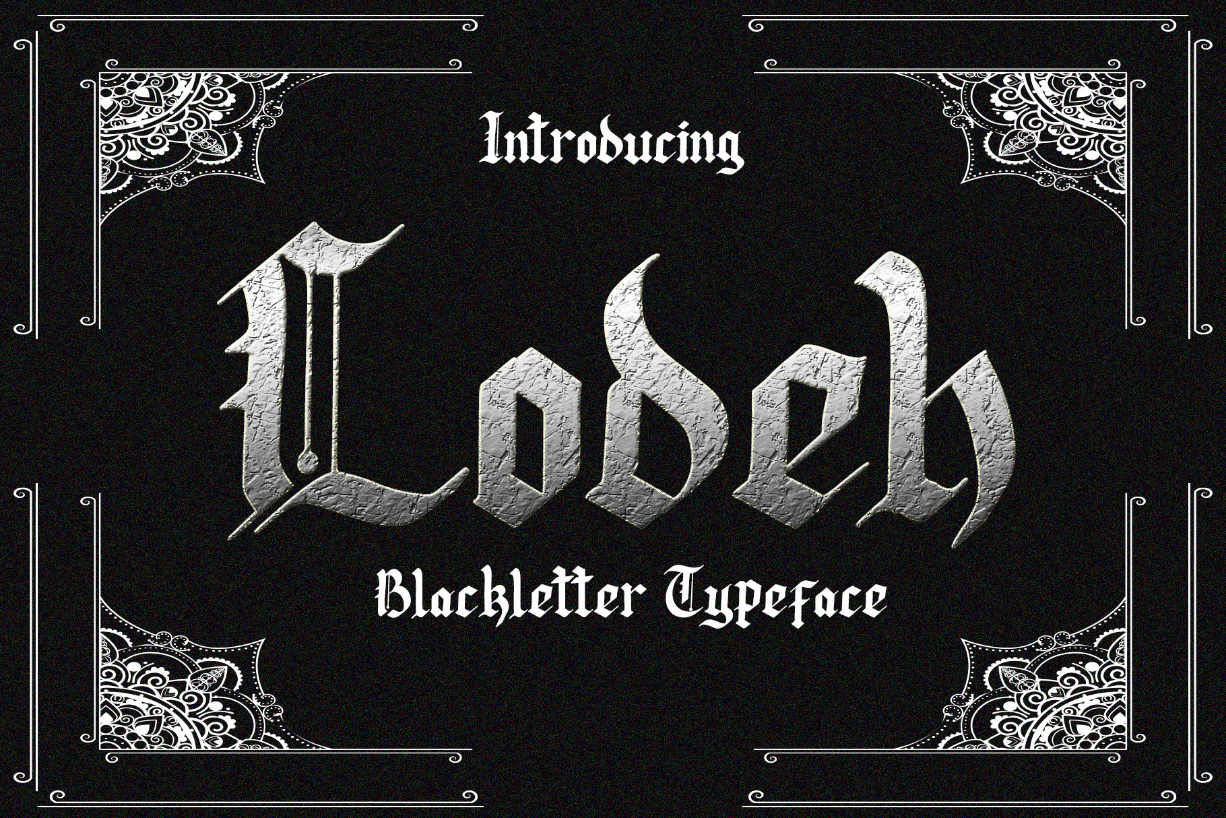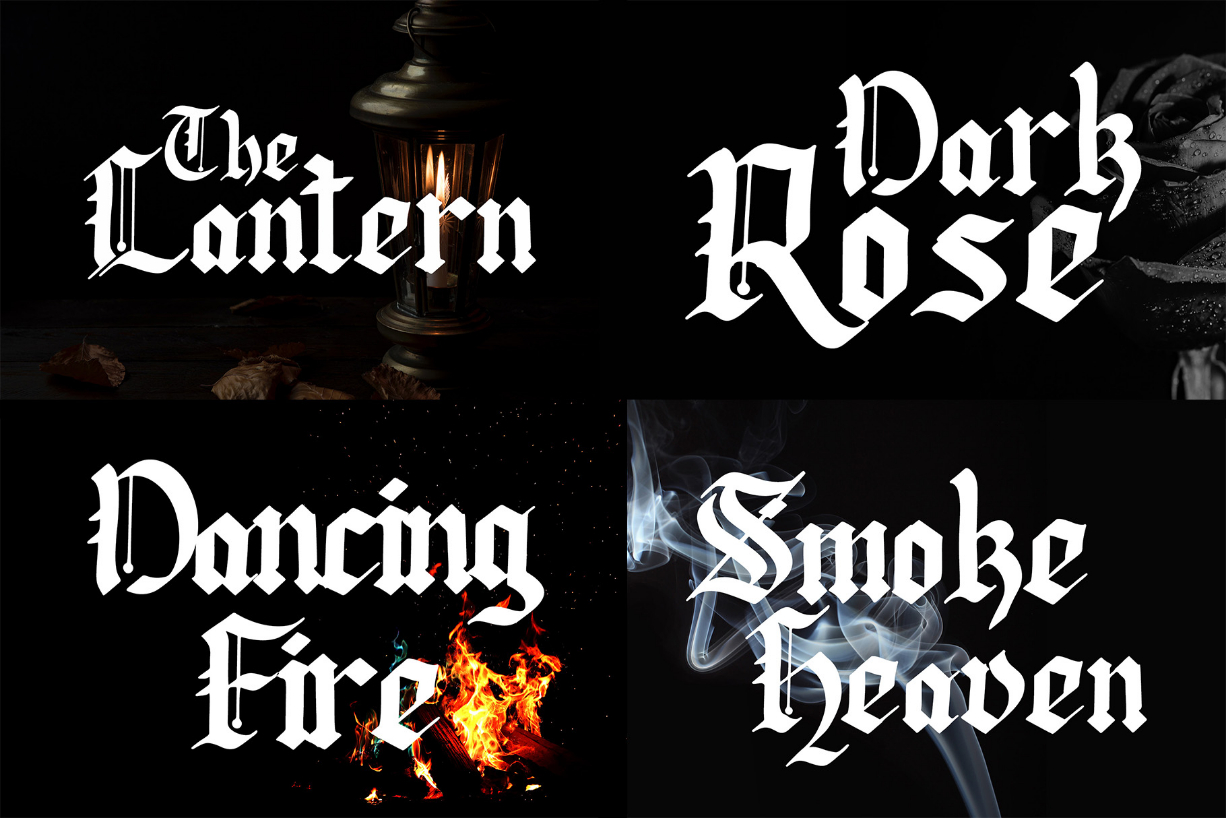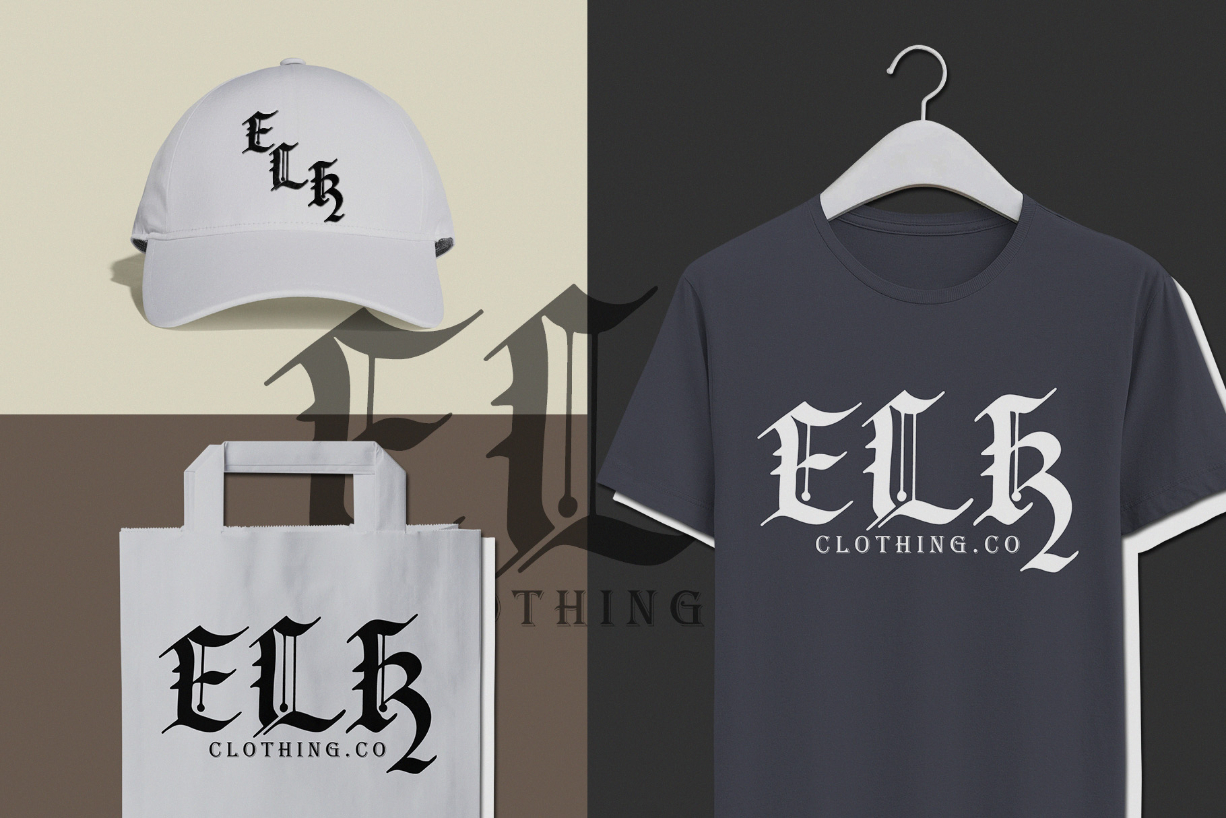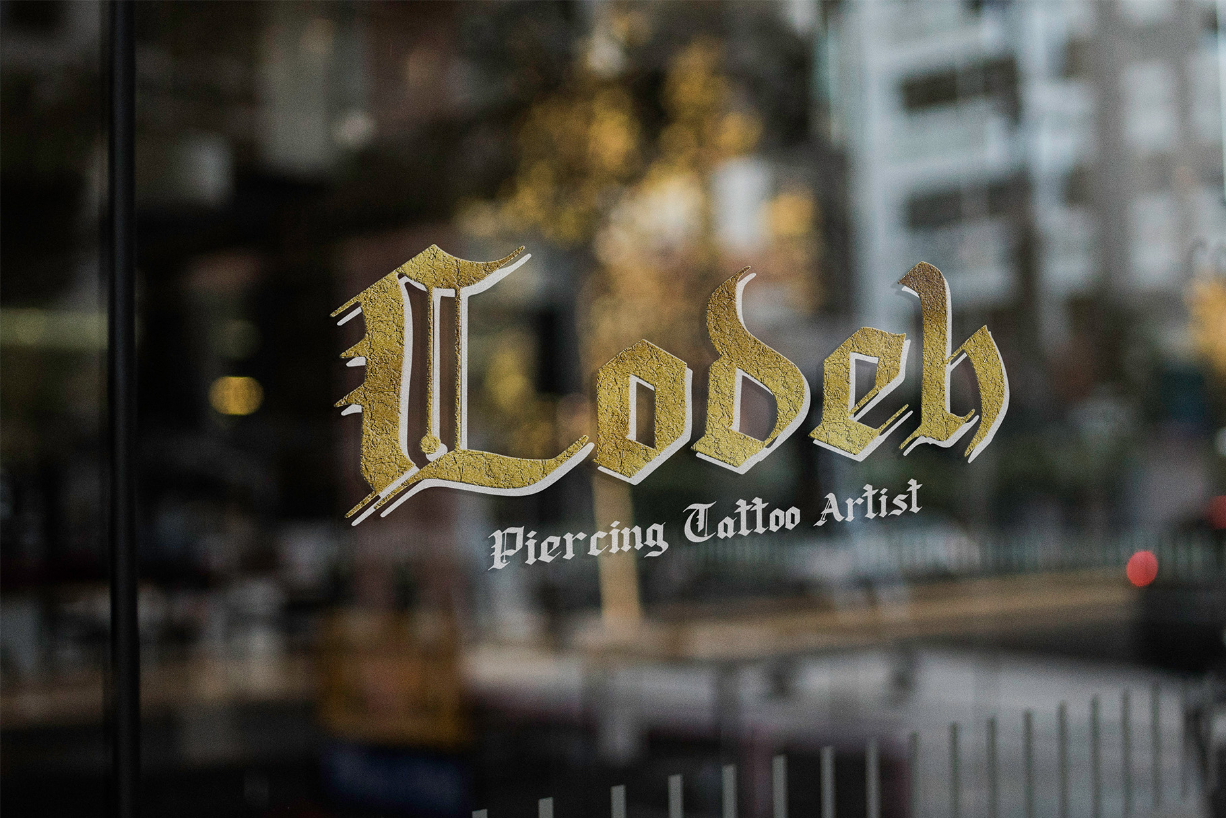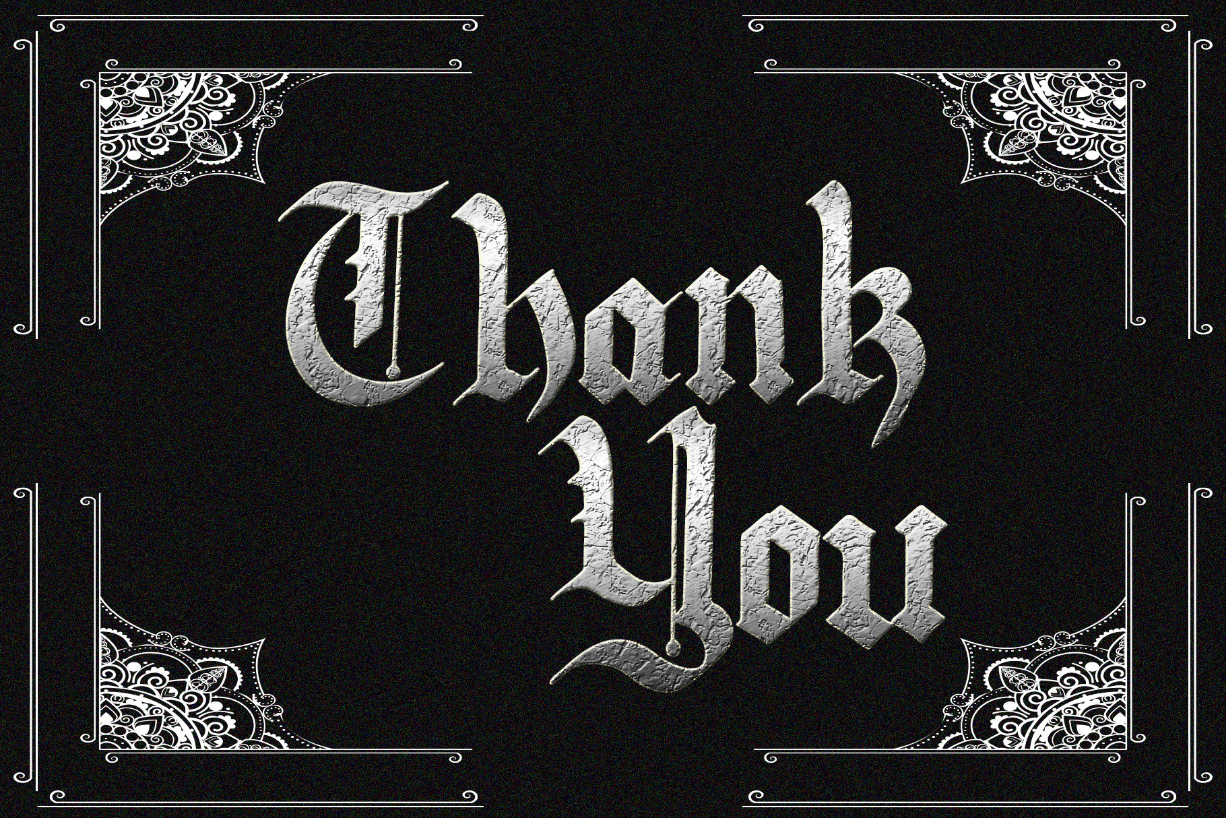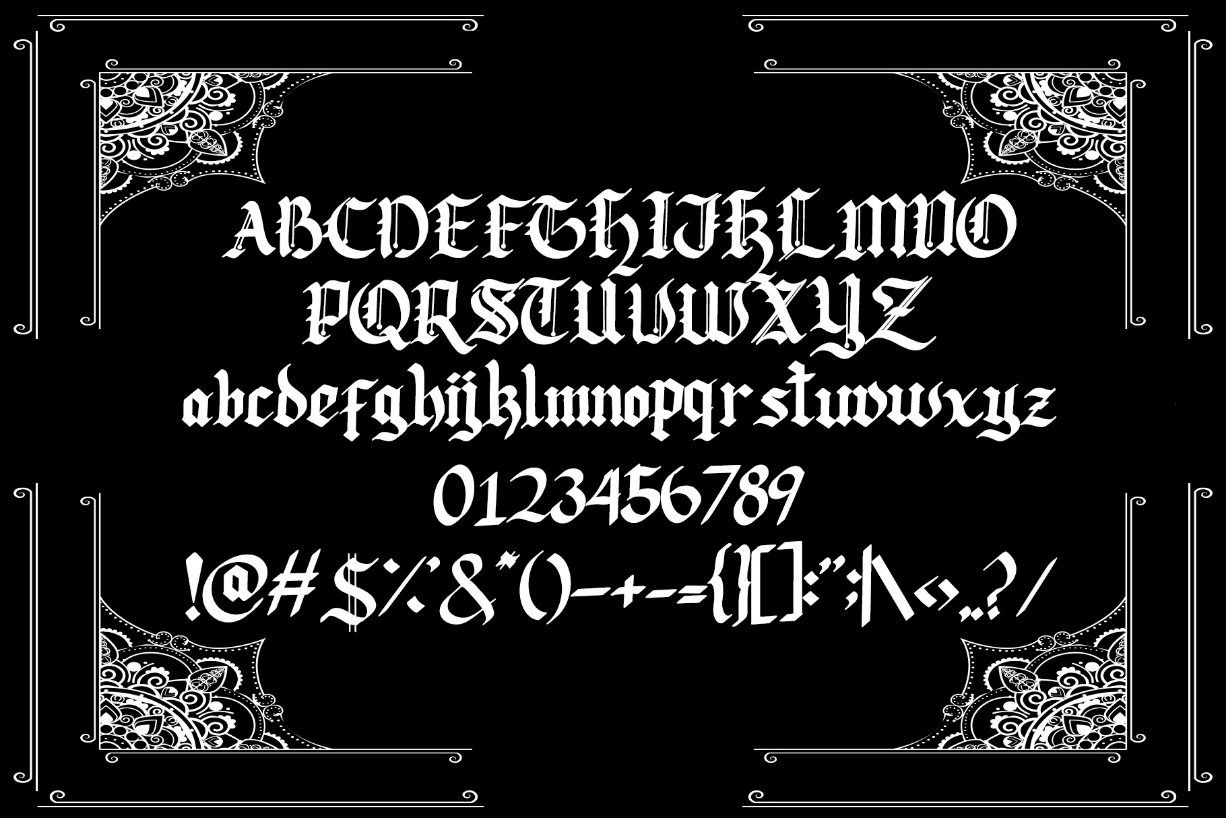
HomeBlackletter FontsLodeh Font Blackletter Fonts Lodeh Font FacebookXPinterestWhatsApp 1 of 8 Lodeh Font Poster 2... Lodeh Font Poster 3... Lodeh Font Poster 4... Lodeh Font Poster 5... Lodeh Font Poster 6... Lodeh Font Poster 7... Lodeh Font Poster 8... About Lodeh Font Lodeh is a stunning blackletter font with a gothic feel. Get inspired by its one-of-a-kind vintage feel! DOWNLOAD NOW People also explored Kimberly Christmas Font Shine Bright Font Nabila Stevanie Font Attention Font Sunny Font Give Love Font Everylove Font Fontdinerdotcom Loungy Christmas Gift Font 401 0 TagsLodeh Font Previous articleThe Black Sugare FontNext articleRequiem Font LEAVE A REPLY Cancel reply Comment: Please enter your comment! Name:* Please enter your name here Email:* You have entered an incorrect email address! Please enter your email address here Website: Save my name, email, and website in this browser for the next time I comment. Personal Use Free No Virus Personal Use Free Read more about this font Sunflower Personal Use Free Read more about this font Houstonville Personal Use Free Read more about this font Husky Stash Personal Use Free Read more about this font BLOG Using Fonts in Digital Marketing: Tips to Strengthen Your Brand Identity In the realm of digital marketing, every visual element plays a crucial role in shaping a brand's identity, and fonts are no exception. The... Free vs Paid Fonts: Why Investing in Premium Fonts Is Worth It To increase your work productivity, choose the most readable fonts. Modern Sans-Serif Fonts That Brands Love in 2025